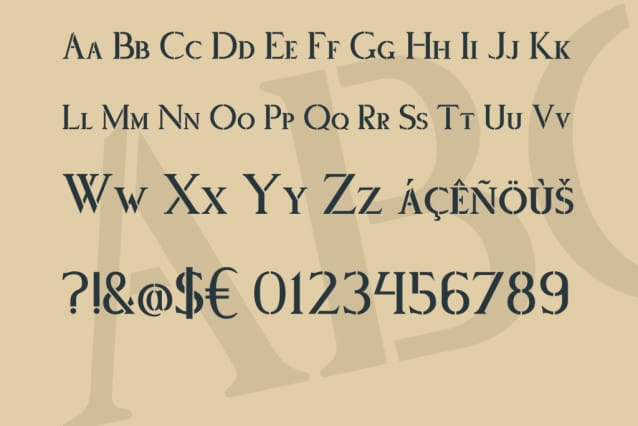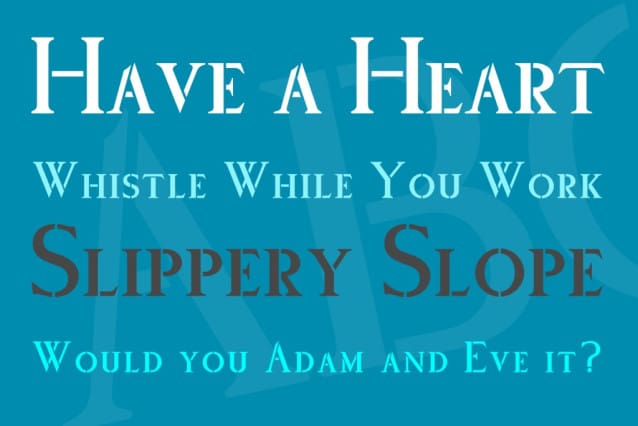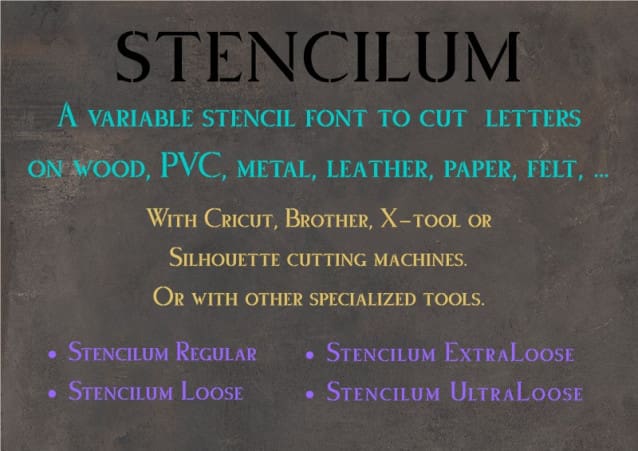
Stencilum Font
Stencilum Font, a variable font for use with cutting machines (Cricut, Brother, X-Tool, Silhouette).
For cutting letters on wood, metal, PVC, leather, paper, felt, etc. Or with other specialized software.
A variable font to cut letters on wood, PVC, metal, leather, paper, felt, etc. With the Cricur, Brother, X-Tool or Silhouette machines. Or with other specialized softwares.